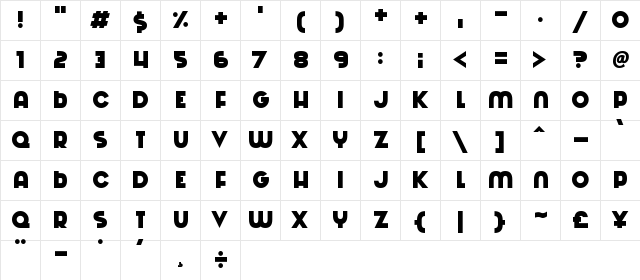
Machinations Regular
Design Context for Machinations Typeface
Machinations offers clean, dependable letterforms without strong stylistic allegiance, making it a practical choice for designers who need flexibility.
Pro Tip: Pair Machinations with a font of contrasting weight or personality to build a more expressive typographic hierarchy.